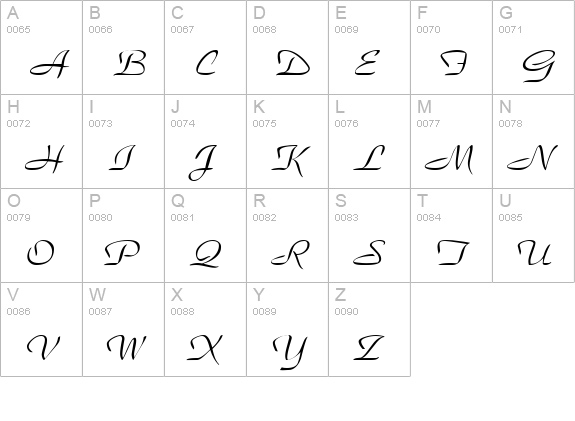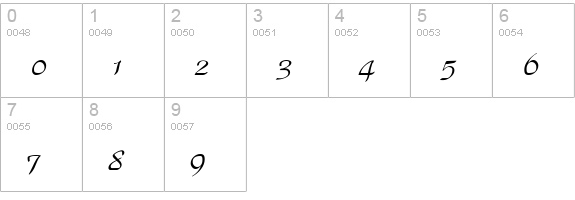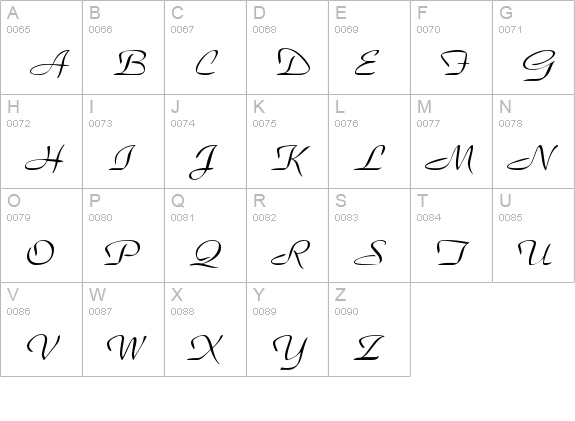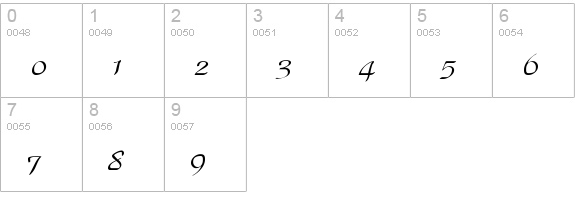
Parkplace Font Details
Parkplace is a visually stunning font that effortlessly combines elegance and modernity. With its sleek lines and graceful curves, this font is perfect for adding a touch of sophistication to any design project. Whether you are creating a logo, designing a website, or crafting a beautiful invitation, Parkplace will surely captivate your audience. What makes Parkplace even more appealing is that it is completely free! Yes, you heard that right. This exquisite font is freely available to download at FontsMarket.com. It's a rare gem in the world of typography, as finding a high-quality font that is both visually appealing and free can be quite a challenge. The versatility of Parkplace is truly remarkable. It works seamlessly in both print and digital media, making it a fantastic choice for a wide range of projects. Its clean and legible characters ensure readability, while its stylish and unique design adds an element of sophistication. Parkplace is a font that effortlessly combines classic elegance with a modern twist. It is sure to make your designs stand out from the crowd and leave a lasting impression on your audience. So why wait? Head over to FontsMarket.com and grab this amazing font for free today!